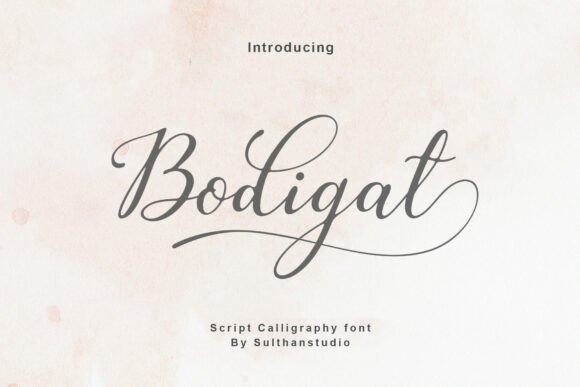
Bodigat Font: Elevate Your Design Work with Elegance and Sophistication
In the world of typography, fonts play a crucial role in conveying the tone and personality of a design. When it comes to creating visually stunning and sophisticated designs, the choice of font is paramount. Introducing Bodigat, a modern script font that is poised to revolutionize your design work with its enchanting touch of elegance. Exuding sophistication through its graceful curves and handcrafted details, Bodigat is the secret ingredient in creating breathtaking wedding invitations, distinguished branding, captivating logos, stylish packaging, and mesmerizing media content.
What Makes Bodigat Stand Out?
- Unique and Elegant Design: Bodigat boasts a distinctive and elegant design that sets it apart from other script fonts. Its flowing curves and refined lines make it perfect for designs that require a touch of sophistication.
- Handcrafted Details: The font features intricate handcrafted details that give it a personal and luxurious feel. Each letter is carefully crafted to ensure that the font exudes a sense of high-end quality.
- Versatile: Bodigat is an incredibly versatile font that can be used for a wide range of design projects, from wedding invitations and branding to logos, packaging, and media content.
- Easy to Read: Despite its elegant and cursive nature, Bodigat is surprisingly easy to read, making it perfect for body text and headlines.
Design Applications for Bodigat Font
Bodigat is a versatile font that can be used in various design applications. Here are some of the ways you can use Bodigat to elevate your design work:
- Wedding Invitations: Create stunning wedding invitations that exude elegance and sophistication with Bodigat. The font’s flowing curves and refined lines make it perfect for formal wedding invitations.
- Branding: Use Bodigat to create distinguished branding that sets your business apart from the competition. The font’s unique and elegant design makes it perfect for luxury brands and high-end businesses.
- Logos: Create captivating logos that make a lasting impression with Bodigat. The font’s handcrafted details and refined lines make it perfect for creating unique and memorable logos.
- Packaging: Add a touch of elegance to your packaging designs with Bodigat. The font’s versatile nature makes it perfect for a wide range of packaging designs, from luxury products to everyday consumer goods.
- Media Content: Use Bodigat to create mesmerizing media content that captivates your audience. The font’s elegant design and handcrafted details make it perfect for creating stunning social media graphics, videos, and more.
Tips for Using Bodigat Font
Here are some tips for using Bodigat font to get the most out of this elegant and sophisticated font:
- Pair with Neutral Colors: Bodigat looks stunning when paired with neutral colors such as white, black, and gray. Experiment with different color combinations to find the perfect match for your design.
- Experiment with Font Sizes: Bodigat is a versatile font that can be used for both headlines and body text. Experiment with different font sizes to find the perfect balance for your design.
- Use for Headlines and Titles: Bodigat is perfect for headlines and titles. Use the font to create stunning headlines that grab attention and make a lasting impression.
- Add Texture and Patterns: Add texture and patterns to your design to give it a unique and personalized touch. Bodigat looks stunning when paired with subtle textures and patterns.
Why Choose Bodigat Font?
With so many fonts available, why choose Bodigat? Here are some reasons why Bodigat stands out from the rest:
- Unique Design: Bodigat boasts a unique and elegant design that sets it apart from other script fonts.
- High-Quality: The font is crafted with high-quality and attention to detail, ensuring that it looks stunning in any design application.
- Versatile: Bodigat is an incredibly versatile font that can be used for a wide range of design projects.
- Easy to Read: Despite its elegant and cursive nature, Bodigat is surprisingly easy to read, making it perfect for body text and headlines.
In conclusion, Bodigat font is a modern script font that is poised to revolutionize your design work with its enchanting touch of elegance. Exuding sophistication through its graceful curves and handcrafted details, Bodigat is the secret ingredient in creating breathtaking wedding invitations, distinguished branding, captivating logos, stylish packaging, and mesmerizing media content. With its unique design, high-quality craftsmanship, and versatility, Bodigat is the perfect choice for designers looking to elevate their design work.